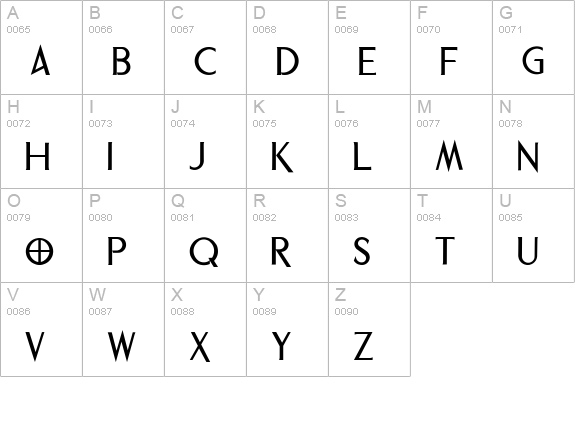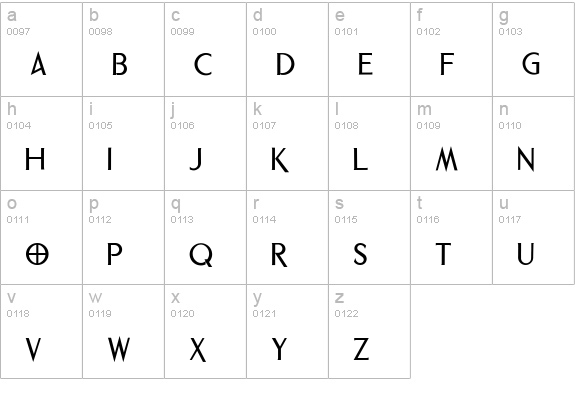
Phrixus Font Details
Phrixus font is a stunning and versatile typeface that will take your designs to the next level. With its sleek and modern design, this font is perfect for any project that requires a touch of elegance and sophistication. Whether you're designing a logo, creating a website, or crafting a print advertisement, Phrixus font will effortlessly enhance your visuals. What sets Phrixus font apart is not just its exquisite aesthetics, but also its accessibility. This font is freely available to download at FontsMarket.com, making it easily accessible to designers and enthusiasts alike. Say goodbye to the hassle of searching for the perfect font and hello to Phrixus font's captivating charm. With its wide range of weights and styles, Phrixus font offers endless possibilities for creative expression. Whether you prefer a bold and attention-grabbing look or a more delicate and refined feel, this font has got you covered. Its clean lines and graceful curves make it a joy to work with, while its legibility ensures that your message is always clear and impactful. Phrixus font's versatility extends beyond its appearance. It is compatible with various design software, allowing you to seamlessly integrate it into your existing workflow. Whether you're working on a personal project or collaborating with a team, Phrixus font will effortlessly adapt to your needs and enhance your creative process. But don't just take our word for it, try Phrixus font for yourself and experience the difference it can make in your designs. Download it for free at FontsMarket.com and unlock a world of possibilities. Elevate your designs with Phrixus font's timeless elegance and make a lasting impression on your audience.